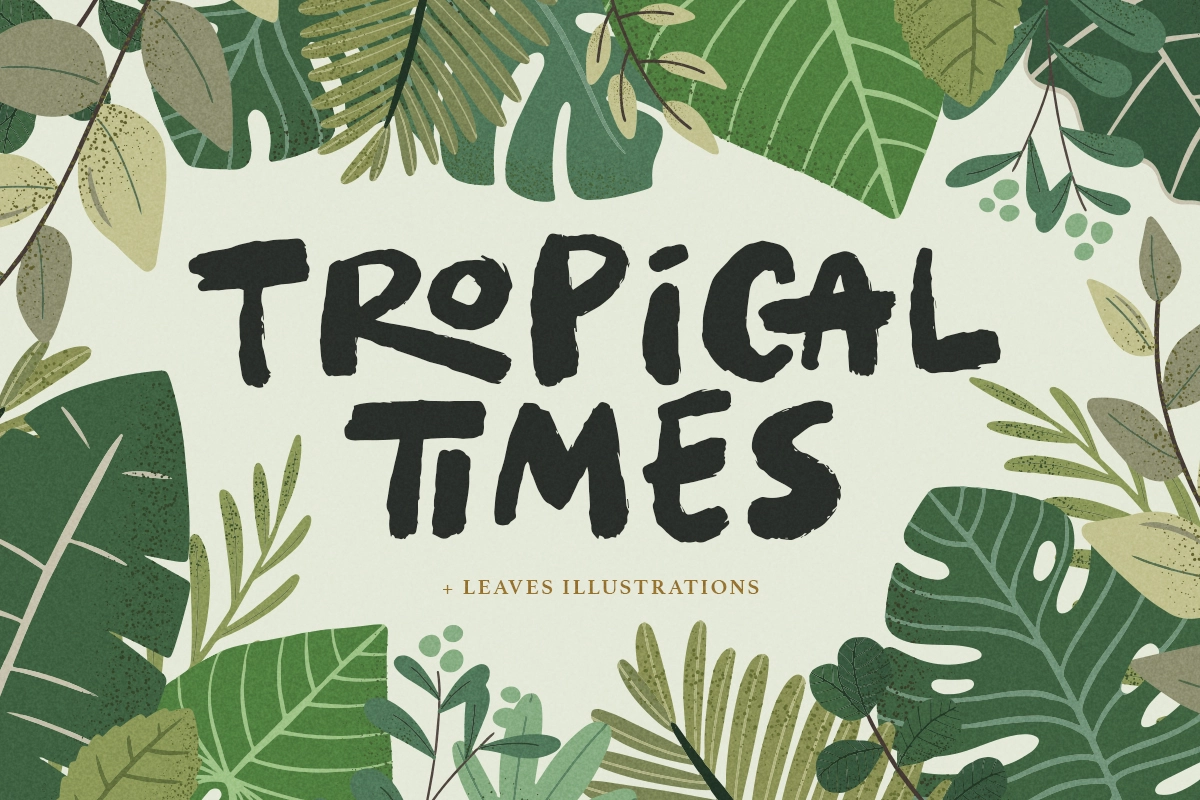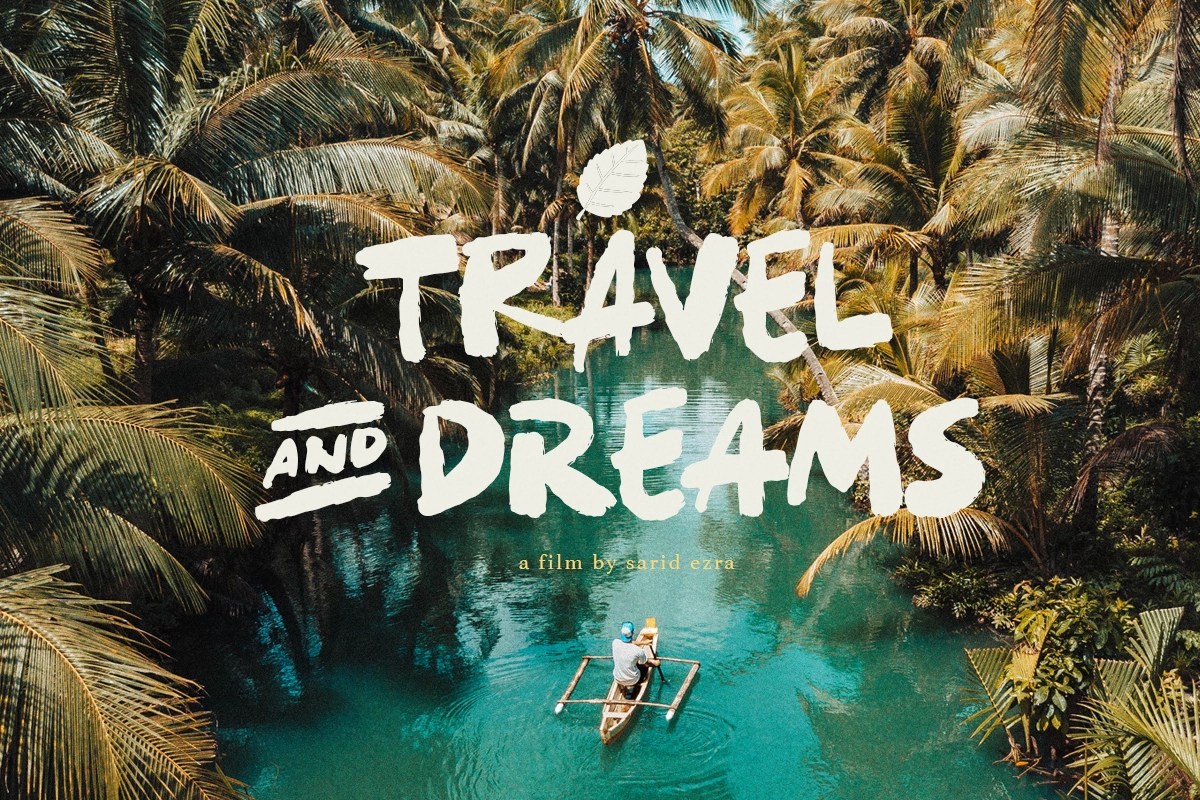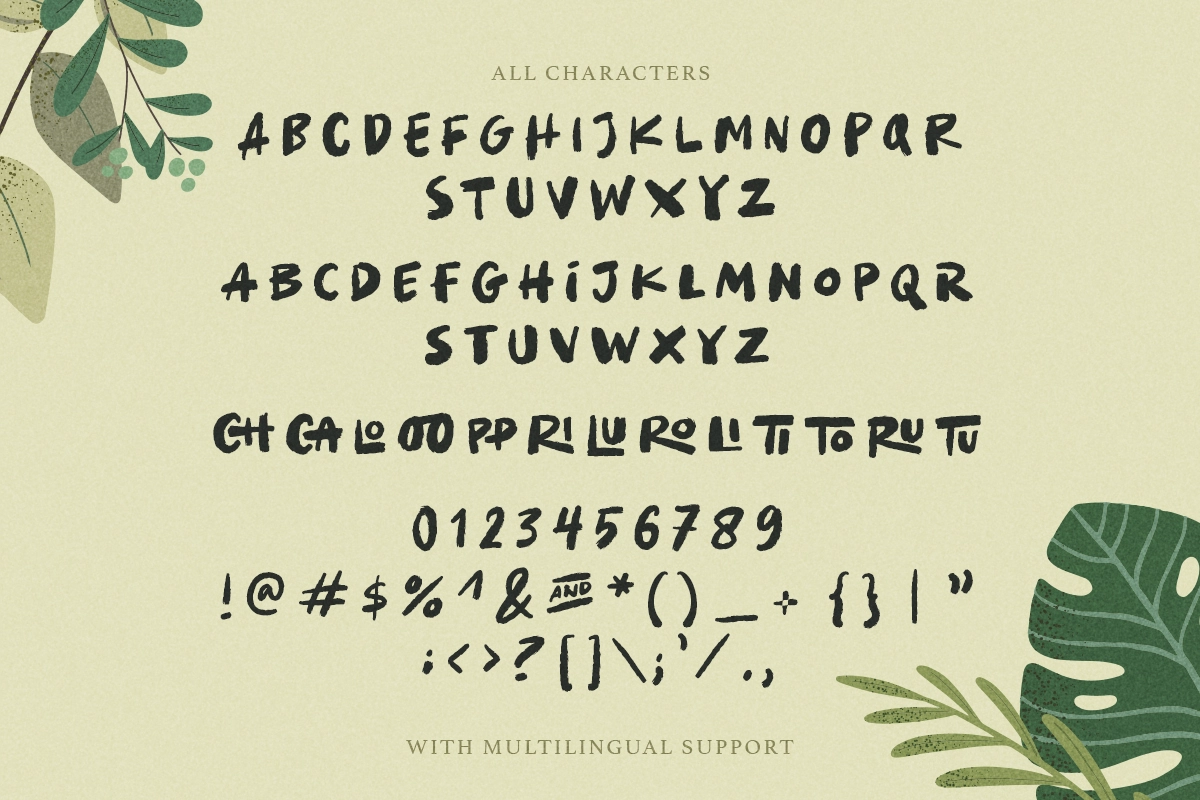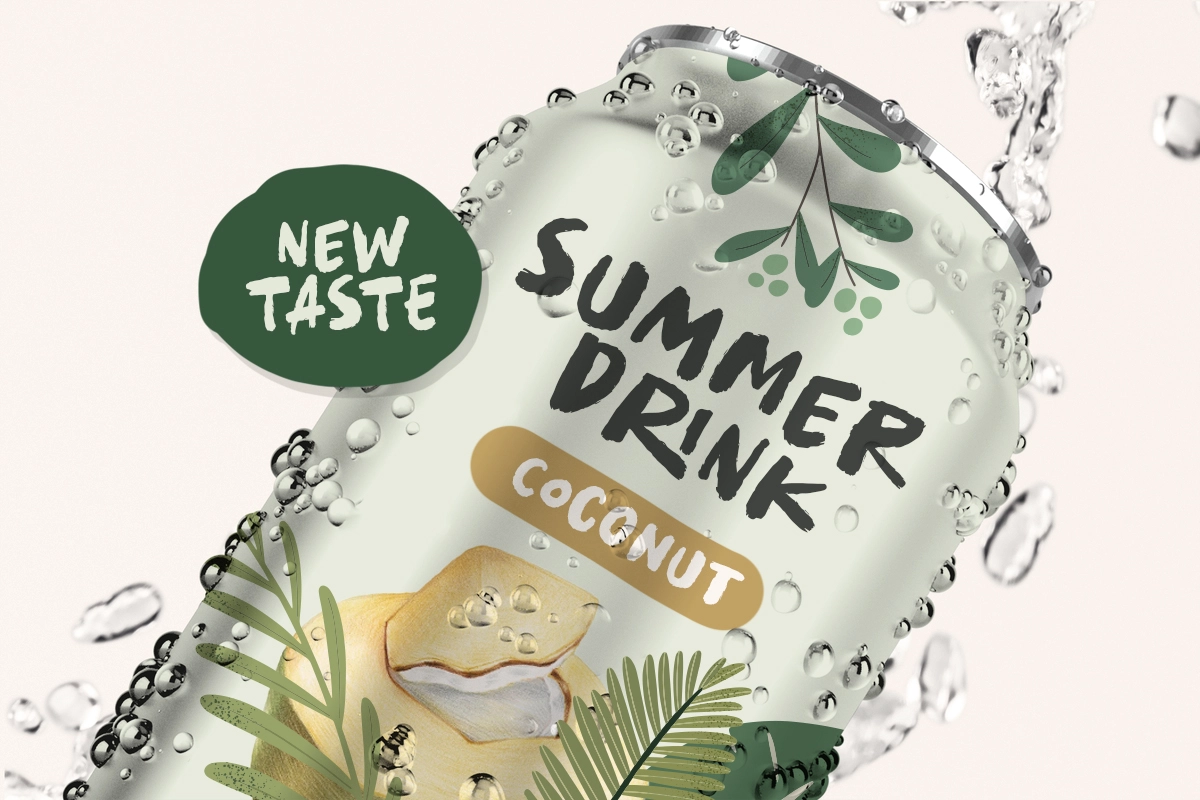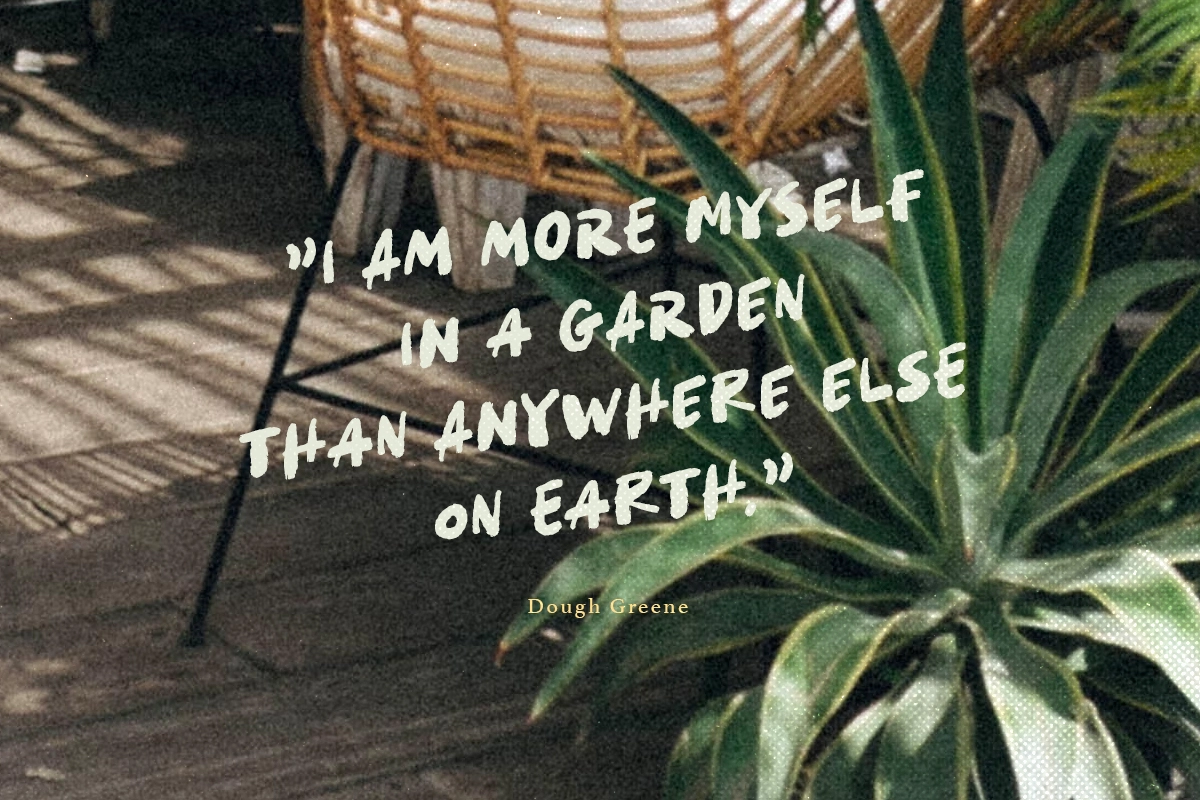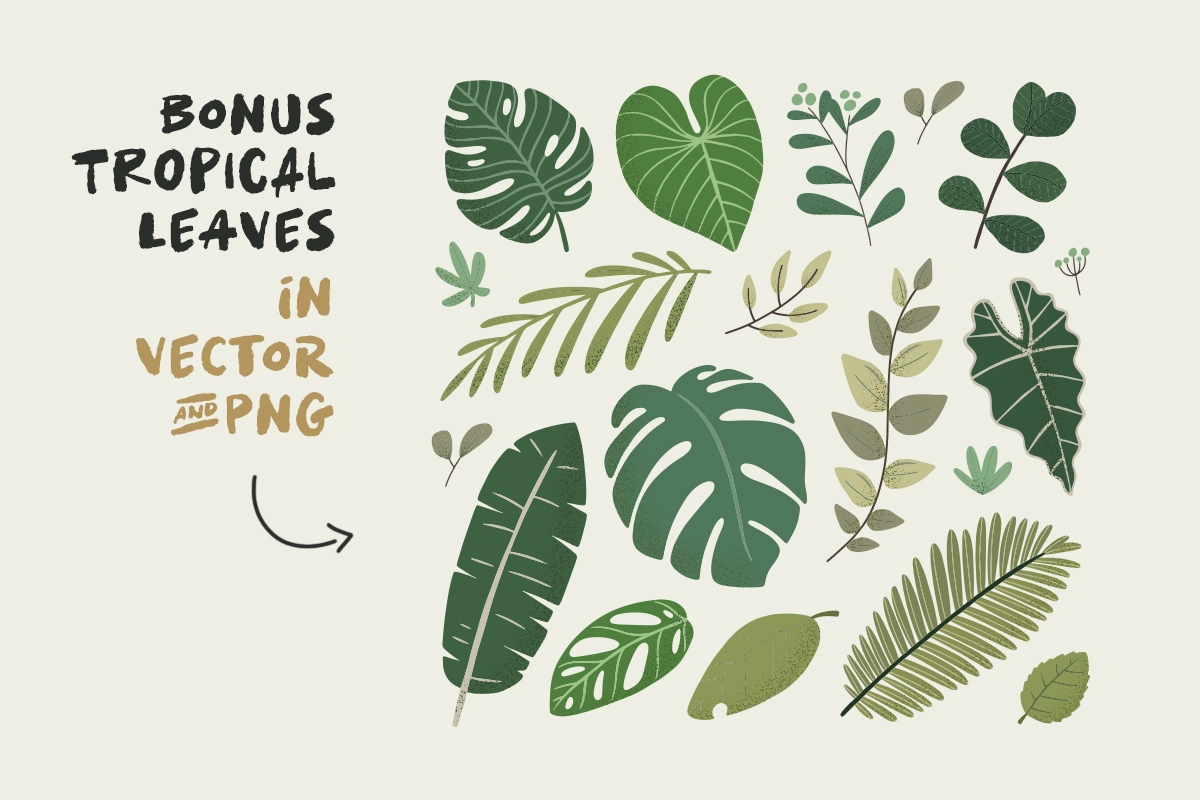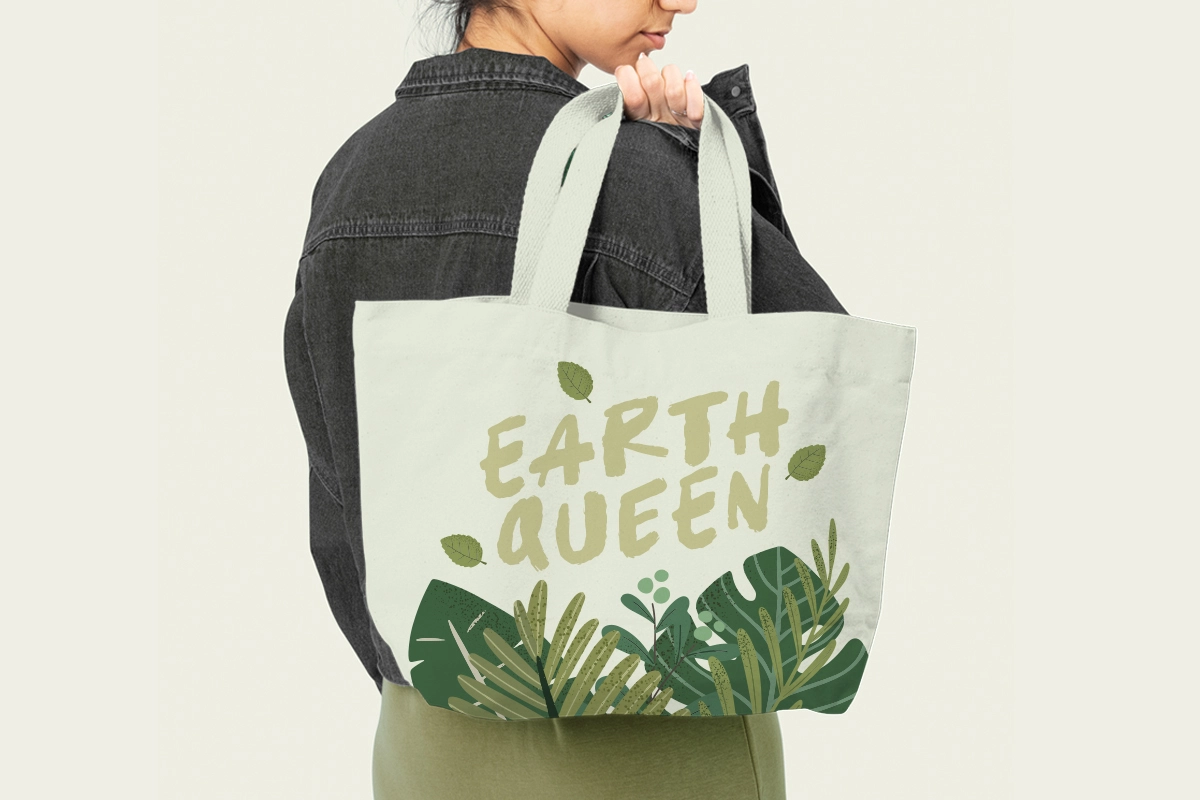
Tropical Times + Leaves Illustration
Tropical Times is a bold handwritten typeface with tropical and summer vibes. You can use this font for any purpose, especially for quotes, branding, book cover, or even merchandise. With stylish ligatures that will make your project more natural and handmade. In the package, you will get bonus tropical leaves illustrations in SVG and PNG that you can use for your projects. This font also support multilingual.